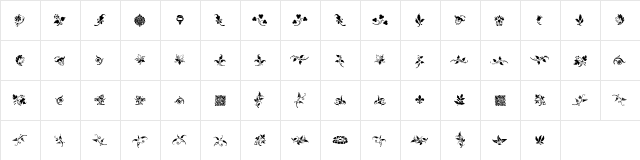
Rough Fleurons Free Regular
Design Context for Rough Fleurons Free Typeface
Rough Fleurons Free embraces imperfection — its rough, textured character adds raw authenticity to designs that want to feel lived-in and unconventional.
Suited to punk-influenced zines, underground music branding, streetwear, and raw, anti-corporate design.
Pro Tip: Pair Rough Fleurons Free with intentionally raw or lo-fi design elements. Fighting against it with overly polished surroundings will undermine its personality.